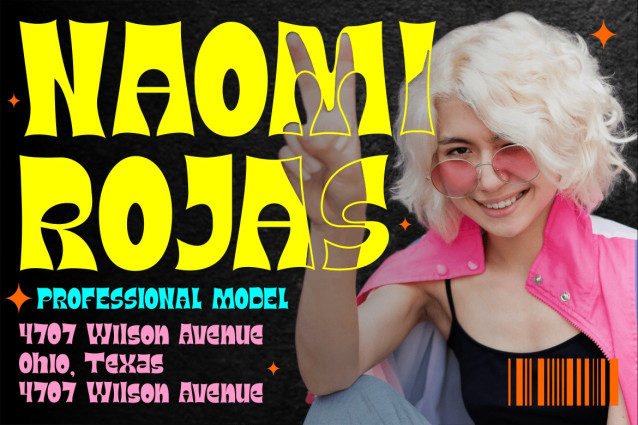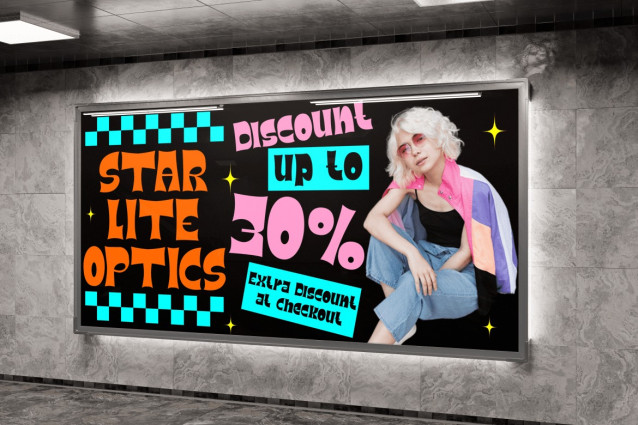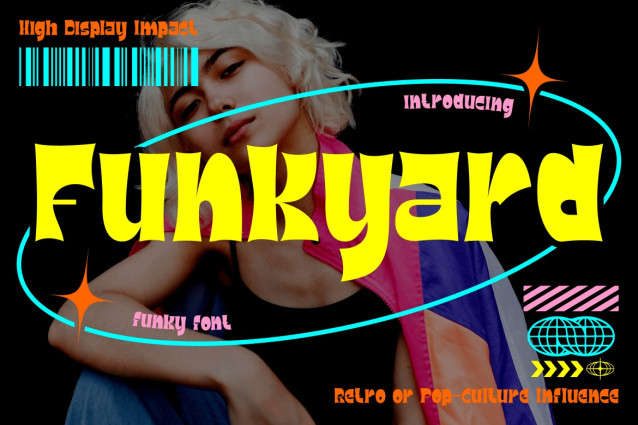
Funkyard Font
Funkyard Font is a vibrant typeface that blends retro nostalgia with bold modern flair. Its playful, exaggerated letterforms draw inspiration from funky Y2K aesthetics and pop-culture influences. The sharp curves, wide counters, and lively proportions create a sense of movement, making every word look dynamic and energetic. With high-impact styling, Funkyard Funky Font is designed for projects that demand attention and personality. Whether you’re creating posters, packaging, logos, or advertising layouts, this typeface ensures your design stands out with a distinctive voice.
The font’s versatility makes it ideal for branding campaigns, event graphics, editorial covers, or even fun DIY crafting projects. Each letter is carefully designed to balance boldness with readability, ensuring your message stays clear while looking stylish. From magazine headlines to album covers, Funkyard Funky Font transforms plain text into eye-catching statements that radiate creativity. If you’re aiming for a design that feels playful yet impactful, this typeface delivers exactly that. Funkyard Funky Font is not just a font—it’s a visual celebration of retro spirit meeting modern boldness.